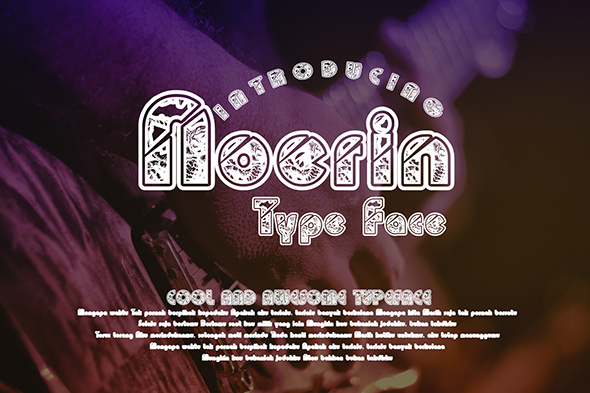
Noerin Font: Ignite Your Designs with a Touch of Creative Brilliance!
In a world where creativity knows no bounds, Noerin Font emerges as a game-changer, ready to transform your design visions into stunning realities. This extraordinary display font captivates hearts with its remarkable elegance and versatility, making it an indispensable tool for designers seeking to leave a lasting impact.
Noerin's story begins with the strokes of genius from Gblack Id, a renowned font designer with an eye for capturing the essence of creativity. Inspired by the fusion of modern aesthetics and timeless charm, Noerin was born—a font that effortlessly amplifes your design's narrative, adding a touch of sophisticated charm.
With Noerin's remarkable versatility, the possibilities are endless. Whether you're crafting eye-catching headlines, designing book covers that speak volumes, or creating posters and invitations that leave a lasting impression, Noerin becomes your trusted companion, transforming your creative endeavors into works of art.
Designers who embrace Noerin as their creative ally discover a new realm of possibilities. Its uniquely curvaceous letterforms dance across the page, inviting readers to dive deep into your stories, while its distinctive ligatures add an air of sophistication that sets your designs apart from the ordinary.
But Noerin's magic extends far beyond its visual appeal. This extraordinary font empowers you to communicate with clarity and precision. Its carefully crafted letterforms ensure that every word, every message, is delivered with crystal-clear impact, leaving no room for ambiguity.
As you embark on your creative journey with Noerin, you'll discover a font that's not just a tool, but an extension of your imagination. Its versatility becomes your canvas, allowing you to paint your ideas with a palette of elegance and creativity.